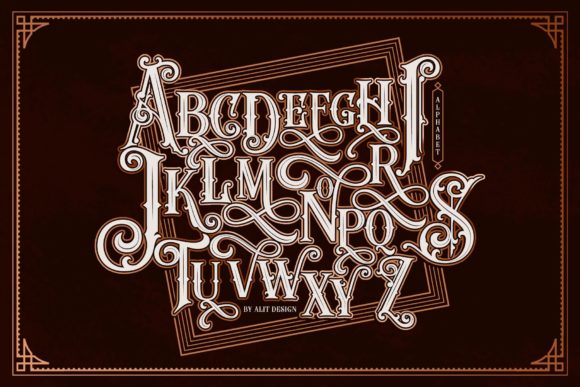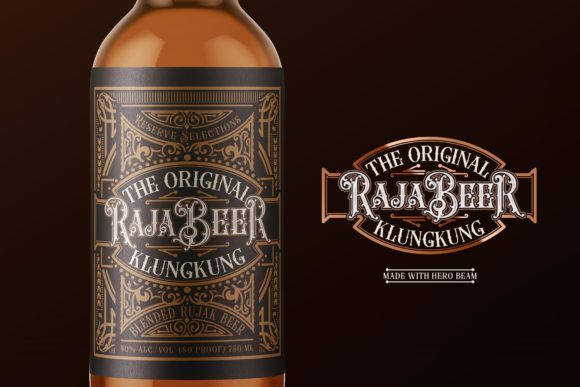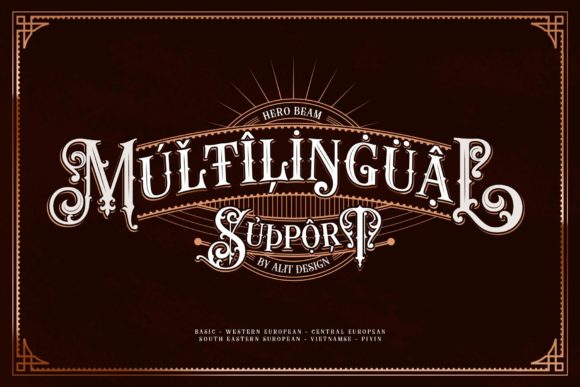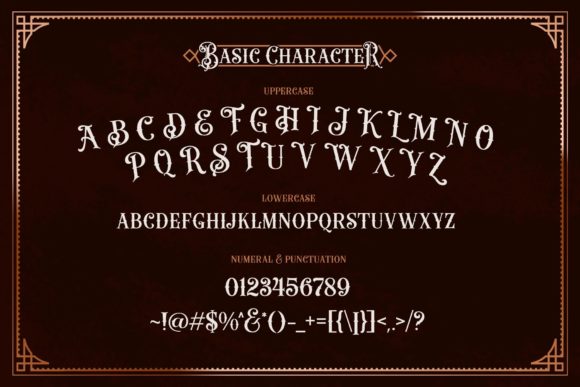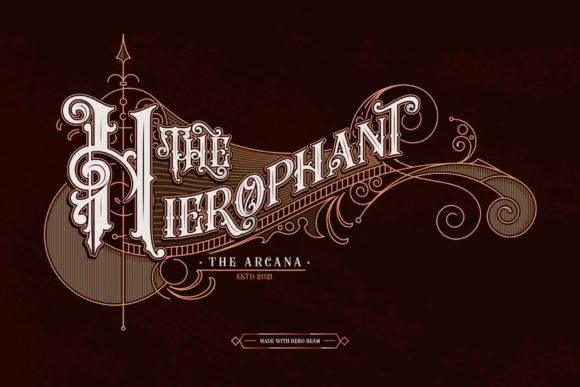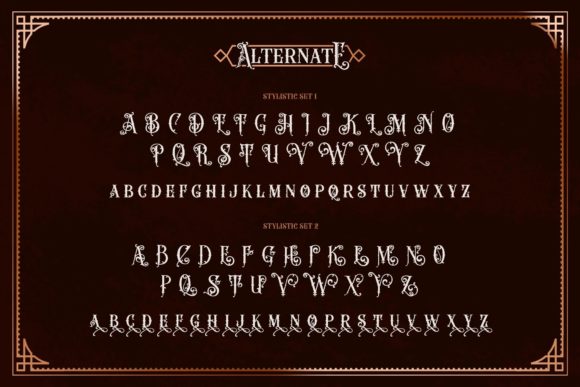
The Ultimate Guide to Hero Beam Font: A Victorian-Styled Blackletter Masterpiece
I’ll never forget the design struggle I faced while working on a project that required a bold, statement-making font. My client wanted a logo that exuded elegance and sophistication, but I was stuck in a creative rut. That’s when I stumbled upon Hero Beam, a Victorian-styled, bold, and uniquely designed blackletter font. It was love at first sight! In this article, I’ll share my experience with Hero Beam, its features, and how to make the most of it in your designs.
Hero Beam: A Personal Review
- ✨ PUA Encoding: Hero Beam is PUA encoded, which means you can access all glyphs and swashes with ease. This feature makes it incredibly versatile and perfect for creative projects.
- ✅ Unique Design: The font’s Victorian style and bold design make it perfect for creating eye-catching headlines, logos, and titles.
- 💥 OpenType Features: Hero Beam comes with a range of OpenType features, including stylistic alternates, swashes, and glyphs, which allow for endless creative possibilities.
While Hero Beam is an amazing font, there are a few things to keep in mind:
- ⚠️ Legibility: Due to its bold and ornate design, Hero Beam may not be the best choice for body text or small font sizes.
- 🤔 Pairing: As with any bold font, it’s essential to pair Hero Beam with a complementary font to ensure visual balance.
Hero Beam was inspired by the grandeur and elegance of the Victorian era. Its designer aimed to create a font that would evoke the feeling of luxury, sophistication, and drama. With its bold, ornate design and extensive OpenType features, Hero Beam is perfect for designers who want to add a touch of elegance to their creations.
| Author | Alit Design |
Q: What is PUA encoding, and how does it benefit Hero Beam?
A: PUA (Private Use Area) encoding allows font designers to include additional glyphs and swashes that can be accessed easily. In the case of Hero Beam, PUA encoding provides access to a wide range of OpenType features, making it incredibly versatile.